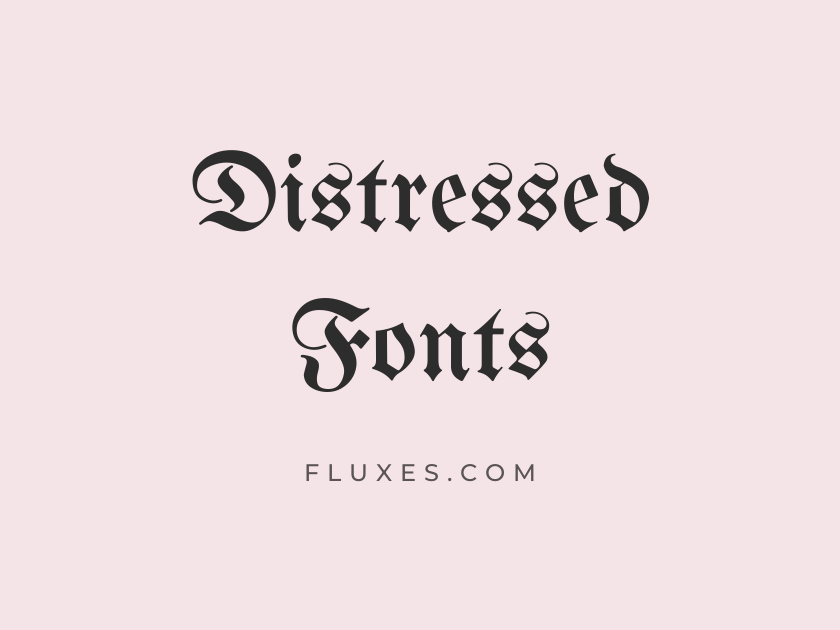
59 Best Distressed Fonts
Distressed type does a lot of emotional work in a very small space. A single worn, cracked, or ink-bled letterform can suggest decades of weather, a hundred years of history, a punk flyer stapled to a telephone pole, or a horror movie poster left curling in a basement. Because that texture has to be baked into the font itself rather than faked with a filter, choosing the right free distressed font matters more than it does for a clean sans or a tidy serif.
The options below span western woodtype, blackletter, horror drip, spray paint, stencil, marker scrawl, and hand-carved serif, all genuinely free to download from Google Fonts and easy to license for both personal and commercial work.
1. UnifrakturMaguntia
Old iron gates, rusted and weathered shut
Rooted in the German blackletter tradition, this face carries angular, broken strokes that feel closer to hammered iron than printed type. It reads best in short bursts, a band name, a single word on a poster, rather than a full sentence, since the density gets muddy at small sizes.
2. UnifrakturCook
Forged letters worn by centuries of rust
UnifrakturCook
UnifrakturCook only ships in bold, and that heaviness works in its favor. The thicker strokes hold up better at smaller sizes than most gothic faces, which makes it a practical pick for badge logos and metal-band merchandise.
3. Pirata One
Beware the pirate's cursed treasure map
Lighter and narrower than most blackletter, Pirata One trades brute weight for an engraved, slightly weathered elegance. It suits treasure-map graphics, tattoo flash, and anything wanting an old-world edge without full gothic heaviness.
4. Grenze Gotisch
Chiseled into crumbling stone monastery walls
Grenze Gotisch
Grenze Gotisch is a variable blackletter family, so you can dial in anything from a thin etched line to a dense, blocky weight. That range makes it one of the more flexible gothic options here, useful whether you need a delicate carved look or a heavy poster headline.
5. MedievalSharp
Sharpened blade, notched from ancient battles
MedievalSharp
MedievalSharp keeps the jagged, hand-cut energy of medieval signage without tipping into the full illegibility of true blackletter. It shows up constantly in game branding and fantasy packaging for exactly that reason.
6. Astloch
Cracked wood signs hung by the tavern door
Astloch
The name means “knothole,” and the letterforms live up to it, riddled with small gaps as if the type itself were worm-eaten wood. It is one of the few fonts on this list where the damage is structural rather than stylistic, so there is no need to layer on extra grunge texture.
7. Fruktur
Faded ink stamped on old parchment scrolls
Fruktur
Fruktur softens the usual gothic sharpness into something more legible, which makes it a reasonable choice for longer headers on vintage document or old-recipe themed layouts.
8. Creepster
Something crawled out of the haunted attic
Creepster is the default answer to “I need a Halloween font” for a reason. The dripping, slightly melted outlines feel unmistakably horror-adjacent, and it renders cleanly even at fairly small display sizes, which is not true of most drippy grunge fonts.
9. Butcherman
Fresh cuts from the butcher's rusty cleaver
Blockier and more aggressive than Creepster, Butcherman leans into torn, jagged edges rather than dripping ones. It suits horror movie posters and gore-themed branding where you want weight as well as menace.
10. Eater
Teeth marks left in the crumbling flesh
Eater
Eater is one of the more extreme choices here, its edges look bitten and eroded away. Use it sparingly, on a single word or short title, since the heavy distortion makes longer text difficult to read.
11. Nosifer
Blood drips down the vampire's cracked coffin
Nosifer
Named after Nosferatu, this face drips like wet blood down every stroke. It is instantly recognizable and works best set large, where the dripping detail can actually breathe.
12. New Rocker
Screaming guitars and rusted amplifier stacks
New Rocker
New Rocker channels heavy metal show posters, jagged and scratchy in a way that photographs well when layered over concrete or rust textures. It pairs naturally with distressed photo overlays for gig flyers.
13. Metal Mania
Battle-worn armor scarred from war
Metal Mania
This one leans thrash-metal logo more than horror poster, with sharp scratchy strokes that echo hand-lettered band merch from the eighties. It is best reserved for short, punchy headlines.
14. Rye
Wanted: outlaw last seen at sundown
Rye has the hand-carved, slightly uneven look of an old saloon sign, and it remains one of the most dependable western-style distressed fonts on Google Fonts. It pairs beautifully with sepia photography and whiskey-label design.
15. Sancreek
Dusty saloon doors creak in the wind
Rounder and bolder than Rye, Sancreek shows up constantly on rodeo posters, barbecue branding, and craft spirit labels. It carries the same frontier woodtype spirit but with a slightly friendlier weight.
16. Smokum
Smoke rises from the campfire at dusk
Smokum
Smokum trades formality for a looser, smokier western script feel. It suits casual frontier or campfire-themed branding where Rye or Sancreek would feel too rigid.
17. Vast Shadow
Shadows stretch long across the ghost town
Vast Shadow bakes a soft, worn shadow directly into its serif letterforms, giving it an engraved, sun-faded quality without needing an added drop shadow. It works well in badge-style western logos.
18. Frijole
Hand-carved letters on a weathered fence post
Frijole
Chunky and rustic, Frijole looks like it was cut into wood with a dull knife. It suits farmhouse branding, craft beer labels, and anything wanting a homemade, slightly clumsy charm.
19. Kavoon
Thick ink brushed onto old canvas tents
Kavoon
Kavoon’s fat, inked strokes have a carnival-poster energy, heavy enough to feel hand-painted onto old canvas. It is distinctive enough that it works best as a display accent rather than a workhorse text face.
20. Special Elite
Case file stamped and forgotten in a drawer
Special Elite recreates the irregular ink and slightly misaligned strikes of a worn manual typewriter ribbon, and it does so convincingly enough to remain a go-to for detective, noir, and ransom-note style projects. Unlike most of the heavier display faces on this list, it is genuinely readable at body-copy sizes.
Pair it with grainy paper textures or a coffee-stain background and the vintage document effect nearly writes itself.
21. Permanent Marker
Scrawled warning on a cardboard sign
Permanent Marker is everywhere for a reason, its thick, confident scrawl instantly reads as handmade and urgent. It is so widely used, though, that pairing it with a genuinely rough background texture helps a design stand out from the crowd.
22. Rock Salt
Scratched note left on a rusty locker
Grittier and less tidy than Permanent Marker, Rock Salt looks like a ballpoint scrawl rather than a fresh marker stroke. It suits skate graphics and scrapbook-style layouts that want a rawer edge.
23. Walter Turncoat
Graffiti tag sprayed under the bridge
Walter Turncoat
Walter Turncoat softens its rough marker strokes just enough to stay friendly, making it a good fit for casual streetwear labels or kids’ event flyers that still want some handmade texture.
24. Sedgwick Ave Display
Chalk scrawled across the alley wall
Sedgwick Ave Display
This bolder cousin of Sedgwick Ave pushes the marker strokes thicker and messier, suiting punk show posters and DIY zine covers where legibility takes a back seat to attitude.
25. Just Another Hand
Rushed note taped to a broken door
Condensed and shaky, Just Another Hand feels like a note scribbled in a hurry. It works well as a small handwritten caption layered over a larger distressed collage composition.
26. Covered By Your Grace
Faded love letter found in an old trunk
Covered By Your Grace
Softer and more nostalgic than most handwritten fonts on this list, Covered By Your Grace suits memorial pieces, vintage scrapbooks, and anything leaning sentimental rather than aggressive.
27. Kranky
Shaky sign nailed to a haunted fence
Kranky
The uneven baseline in Kranky makes every line look like it is about to fall over, which gives it a naturally worn, unstable charm well suited to spooky kids’ Halloween materials.
28. Ranchers
Bold brand burned into the barn door
Ranchers
Chunky and rounded with rough edges, Ranchers reads almost like a stamped cattle brand. It has real presence at large sizes, making it a strong choice for rustic logos and farm-to-table packaging.
29. Rancho
Hand-painted sign outside the roadside diner
Rancho
Rancho keeps its brush-script roughness moderate rather than extreme, which makes it more versatile than most of the entries here for retro diner signage and roadside Americana branding.
30. Cabin Sketch
Blueprint sketched by candlelight in camp
Cabin Sketch
Cabin Sketch renders every letter as if drawn in broken pencil strokes on rough paper, complete with a matching outline weight. It suits outdoor, camp, and DIY craft branding that wants a sketched rather than grimy distress.
31. Londrina Sketch
Rough draft scratched onto torn notebook paper
Londrina Sketch
Bolder and scrappier than Cabin Sketch, this display face looks genuinely scribbled rather than carefully drawn. It works best set large, as a poster headline rather than running text.
32. Architects Daughter
Notes scrawled in the margins of blueprints
More restrained than the rest of this list, Architects Daughter reads like handwritten annotation rather than heavy distress. It is a useful quieter counterpoint when layered as a caption over a bolder, rougher headline.
33. Stardos Stencil
Property stamped for military inspection only
The gaps built into any stencil face already read as worn and utilitarian, and Stardos Stencil leans into that with slightly rounded, well-worn edges. It pairs naturally with khaki and canvas textures for army-surplus style branding.
• Big Shoulders Stencil
Warehouse crates stamped and shipped overseas
Big Shoulders Stencil
This condensed, industrial stencil comes as a variable font, so a single family can cover everything from a light shipping label to a heavy warehouse sign. Its Chicago-inspired proportions give it a slightly gritty, working-class feel.
• Wallpoet
Faded stencil painted on the shipping container
Thinner and more geometric than most stencils, Wallpoet reads like a spray-painted military marking rather than a hand-cut sign. It is a good alternative when the bulkier stencil options feel too heavy.
• Bangers
Comic panel torn from an old issue
Bangers carries the rounded, slightly rough edges of vintage comic lettering. Set large and paired with a halftone texture, it makes a convincing torn-from-the-comic-page headline.
• Kablammo
Explosion ripped through the comic panel
Kablammo
A variable font built around a distortable baseline, Kablammo can bend and warp like a comic-book blast radius. It is playful and chaotic by design, best used for a single punchy word rather than a paragraph.
• Rubik Distressed
Sun-bleached sign fading on the boardwalk
Rubik Distressed
Part of the wider Rubik decorative superfamily, Rubik Distressed applies a scratchy, sun-worn texture directly onto a clean geometric skeleton. The result stays surprisingly legible even with all that grime, which makes it more practical for headlines than most fully hand-drawn grunge fonts.
• Language support: Latin, Latin Extended, Cyrillic, Cyrillic Extended, Hebrew
• Rubik Dirt
Mud-caked boots stomped across the sign
Rubik Dirt
Heavier and grimier than Rubik Distressed, this variant looks like it was dragged through wet soil. It suits outdoor, adventure, or off-road branding that wants texture without losing the underlying sans structure.
• Language support: Latin, Latin Extended, Cyrillic, Cyrillic Extended, Hebrew
• Rubik Burned
Edges scorched by the campfire's flame
Rubik Burned
Rubik Burned gives every letter a charred, singed edge, dramatic enough for caution labels, apocalyptic themes, or anything wanting a literal “burned in” effect.
• Language support: Latin, Latin Extended, Cyrillic, Cyrillic Extended, Hebrew
• Rubik Storm
Paper shredded by the hurricane's wind
Rubik Storm
The torn, ragged strokes in Rubik Storm read like paper damaged by weather rather than by hand. It fits disaster-themed graphics and extreme sports branding well.
• Language support: Latin, Latin Extended, Cyrillic, Cyrillic Extended, Hebrew
• Rubik Wet Paint
Wet paint dripping down the warning sign
Rubik Wet Paint
This playful drippy variant looks like ink that has not quite dried, useful for anything themed around freshly painted signage or liquid motifs.
• Language support: Latin, Latin Extended, Cyrillic, Cyrillic Extended, Hebrew
• Rubik Puddles
Ink pooling in puddles after the rain
Rubik Puddles
Rounder and more organic than Rubik Wet Paint, Rubik Puddles reads like melting ink pooling at the base of each letter. It works nicely as a secondary accent font alongside a bolder distressed headline.
• Language support: Latin, Latin Extended, Cyrillic, Cyrillic Extended, Hebrew
• Rubik Spray Paint
Graffiti sprayed across the abandoned wall
Rubik Spray Paint
This one nails the texture of an actual spray can, complete with overspray and rough edges. It pairs naturally with concrete or brick photography for street art and skate branding.
• Language support: Latin, Latin Extended, Cyrillic, Cyrillic Extended, Hebrew
• Rubik Broken Fax
Garbled message from a broken fax machine
Rubik Broken Fax
Rather than physical wear, Rubik Broken Fax simulates a damaged transmission, glitchy broken lines that suggest a corrupted print or scan. It is a fun option for tech-nostalgia or glitch-art projects that still want a text-based distressed feel.
• Language support: Latin, Latin Extended, Cyrillic, Cyrillic Extended, Hebrew
• Rubik Scribble
Scribbled over the crossed-out old memo
Rubik Scribble
The hatched, scratchy fill in Rubik Scribble feels hand-etched rather than printed, which makes it a good match for redacted-document or crossed-out design motifs.
• Language support: Latin, Latin Extended, Cyrillic, Cyrillic Extended, Hebrew
• Rubik Marker Hatch
Hatched shading sketched across the poster
Rubik Marker Hatch
Less about damage and more about handmade shading, Rubik Marker Hatch fills each letter with cross-hatched marker lines. It works well layered behind a cleaner distressed headline for added texture.
• Language support: Latin, Latin Extended, Cyrillic, Cyrillic Extended, Hebrew
• Rubik Beastly
Jagged claws tore through the banner
Rubik Beastly
Torn, jagged edges give Rubik Beastly a claw-marked look, aggressive but still playful. It suits monster-themed packaging and sports team branding that wants a bit of bite.
• Language support: Latin, Latin Extended, Cyrillic, Cyrillic Extended, Hebrew
• Rubik Glitch
Signal breaking up on the old television
Rubik Glitch
Where most of this list deals in physical grime, Rubik Glitch distorts digitally, more broken screen than broken paper. It is a useful pick when the brief calls for a damaged-media look rather than an analog one.
• Language support: Latin, Latin Extended, Cyrillic, Cyrillic Extended, Hebrew
• Rubik 80s Fade
Faded neon sign from the old arcade
Rubik 80s Fade
The gradient fade in this variant mimics a sun-bleached print or a worn eighties poster, which makes it a natural fit for retro synthwave or nostalgic arcade branding.
• Language support: Latin, Latin Extended, Cyrillic, Cyrillic Extended, Hebrew
• Irish Grover
Old pub sign creaking above the door
Irish Grover
Irish Grover’s chunky, uneven strokes have a hand-carved, pub-sign charm that suits Celtic-themed branding and St. Patrick’s Day materials without tipping into full novelty.
• Mystery Quest
Treasure map torn at the edges
Mystery Quest
Jittery and slightly uneven, Mystery Quest reads like old parchment lettering, a good match for adventure book covers or treasure-hunt themed packaging aimed at younger audiences.
• Emblema One
Stamped seal pressed into old wax
Emblema One
Emblema One has the chunky, slightly rough character of a stamped wax seal, which makes it well suited to crest, badge, and heritage-brand logo work.
• Stalemate
Brush-scarred banner from the losing battle
Stalemate
Stalemate is a scratchy, energetic brush script that feels genuinely fought over, aggressive enough for grunge band merchandise or combat-sport branding.
• Piedra
Letters chiseled into ancient carved stone
Piedra
Built from small dotted strokes, Piedra evokes carved or engraved stone rather than ink on paper. It is a niche pick, but a striking one for archaeological, tribal, or ancient-ruins themed design.
• Fondamento
Quill ink feathered across old vellum
Fondamento
A rough calligraphic chancery style, Fondamento looks like it was written with a worn quill rather than a modern pen. It pairs naturally with parchment textures and wax-seal graphics for historical document design.
• Lacquer
Fresh graffiti tag drying on brick
Lacquer
Lacquer captures the drips and rough spray edges of authentic graffiti lettering. The detail can blur at small sizes, so it is best reserved for large display headlines in street art or skate branding.
• IM Fell English
Pages yellowed in a forgotten library
IM Fell English
IM Fell English is drawn from actual worn metal type used in eighteenth-century English printing, so its irregular kerning and antique proportions come from real historical wear rather than an applied filter. That makes it one of the more quietly authentic distressed fonts on this list, better suited to old-world book, menu, or document body text than to a bold poster headline.
It pairs naturally with wax-seal graphics, deckled paper edges, and other genuinely antique visual cues.
• Metamorphous
Runes etched into a crumbling temple wall
Metamorphous
Metamorphous carries a rough, gothic-adjacent texture in a serif that stays more legible than true blackletter. It offers a solid middle ground for fantasy or historical branding that needs a worn, stone-carved feel without sacrificing readability.
Pairing and Using Distressed Fonts
Most distressed fonts work best in headlines, badges, and short lines rather than paragraphs of body copy. Save a cleaner, quieter serif or sans for any supporting text so the page stays readable.
Layering matters as much as font choice. A grunge display face set over a plain white background loses half its effect; pair it with paper grain, concrete, rust, or halftone textures to sell the worn look.
Restraint helps too. One heavily distressed headline paired with a calm typeface underneath usually reads stronger than two competing grunge fonts fighting for attention.
Whether the goal is a horror movie poster, a western whiskey label, a punk flyer, or a weathered vintage document, there is enough range across these families to cover the job without ever touching a paid font license.